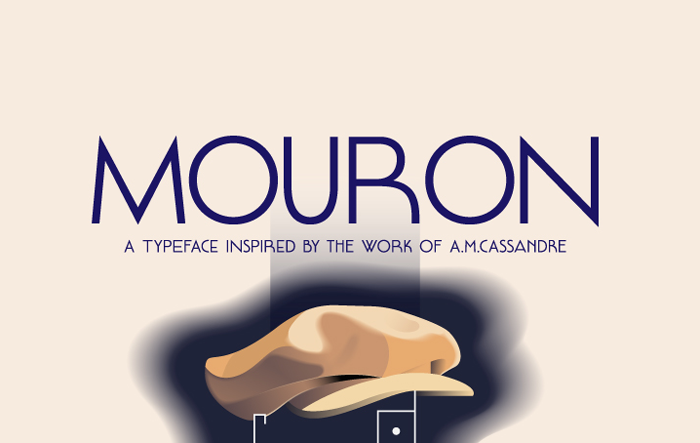
Mouron Typeface
Thank you for viewing this font, it is very special, you add it to your fonts collection. Introducing Mouron Typeface! Mouron designed and shared by Simon Dunford, Student RGD. A fantastic new and very tall art deco font. Great for headlines, titles, posters, logos, presentations etc.